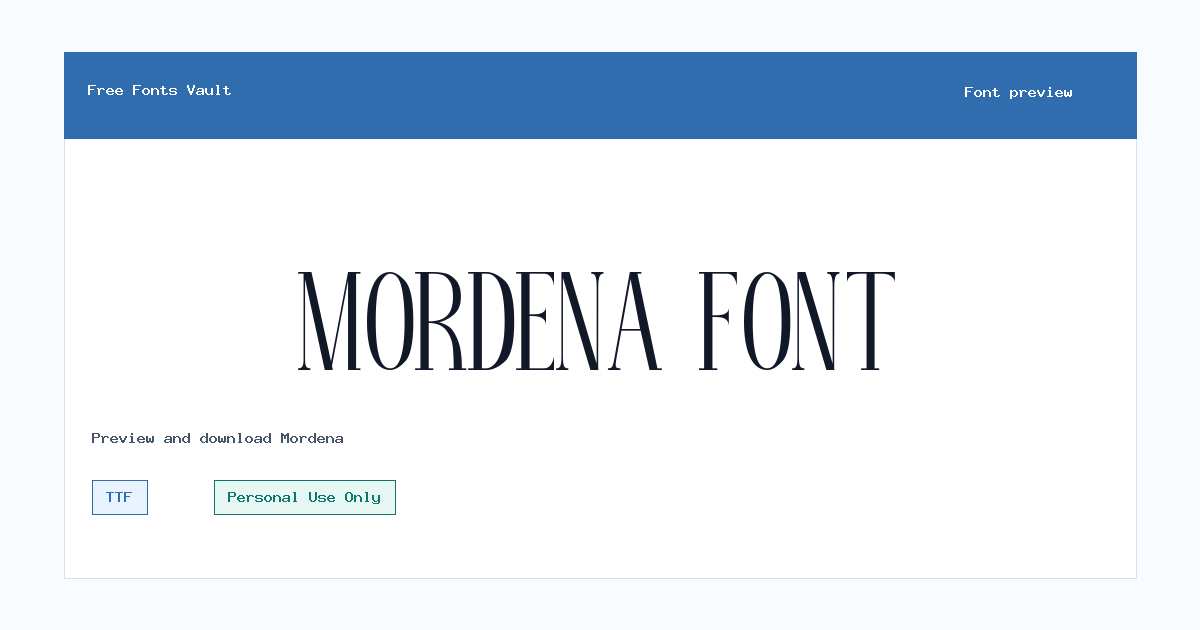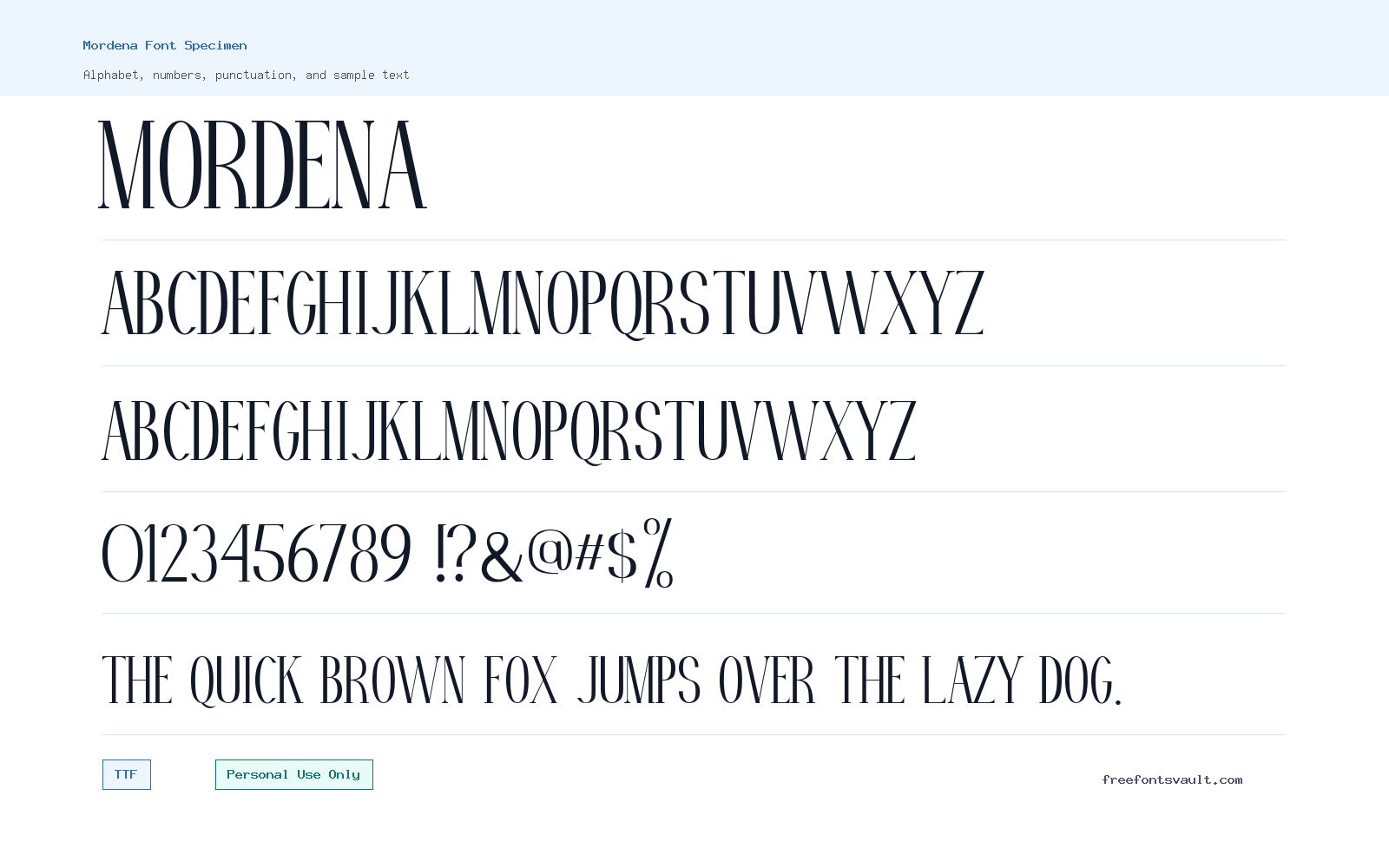
Mordena
- Designer Gitayogi
- Foundry Scratch Design
Mordena font.
Mordena is a personal-use serif font with a refined display feel, suited to visitors who want to test a stylish typeface for headings, invitations, branding mockups, and other short-form designs.
About Mordena Font
Mordena works best when it has room to show its shape. As a serif font, it brings a more polished and editorial look than a plain sans serif, making it a good option for titles, name marks, quote graphics, packaging concepts, and social media layouts. The available file is Mordena Regular in TTF format, with a normal style and 400 weight, so it is straightforward to install and test in common design apps. Because only one regular style is listed, it is better to treat Mordena as a display choice rather than a full text family with many weights.
- Serif display style suited to headings, short phrases, and polished layout concepts
- Logo drafts, title designs, quote graphics, invitations, and editorial-style headings
- Personal design experiments, mockups, social posts, and print layouts that use short text
Mordena is credited to Gitayogi, with Scratch Design listed as the foundry.
Is Mordena good for body text?
Mordena is a better fit for headings and short text. For long paragraphs, pair it with a simpler, highly readable font.
Who designed Mordena?
Mordena is credited to Gitayogi. Scratch Design is listed as the foundry.